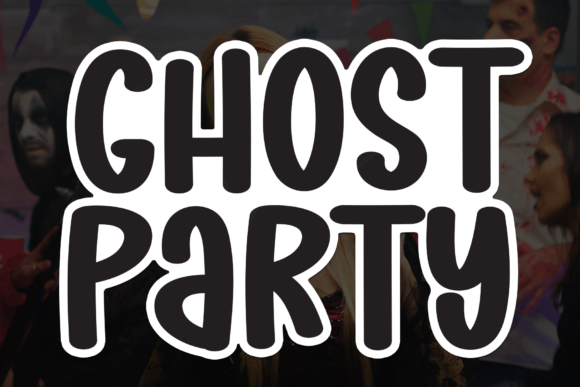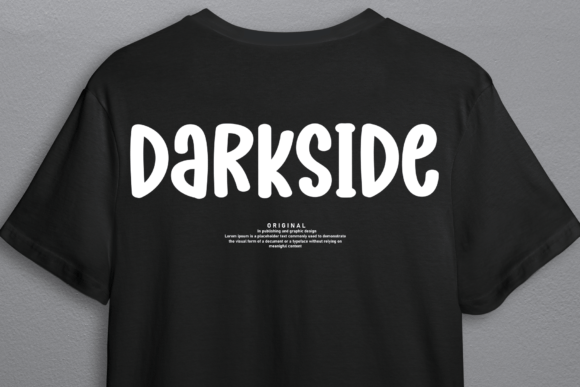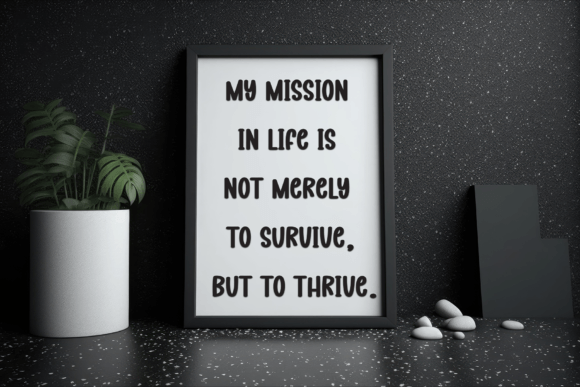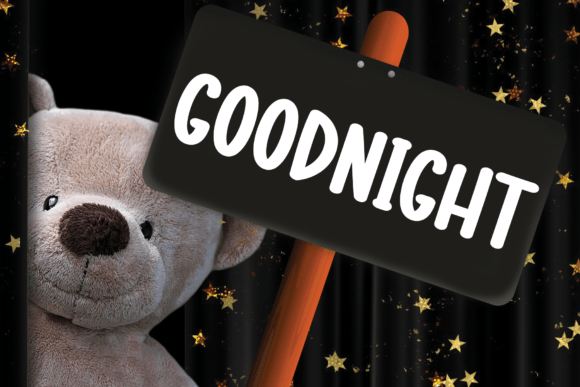
Ghost Party Font: A Cute Handwritten Font for Cricut & DIY Projects
About the Ghost Party Font
The Ghost Party Font is here to transform your projects with its distinctive character and style. Ghost Party is a lovely and timeless handwritten font. It is the best choice for
creating eye catching logos, branding and quotes. Every letter has a unique and beautiful touch, which will make your design come alive!
Ghost Party’s elegant, yet slightly playful handwritten style excels in headlines, short quotes, and logotypes where its unique character shines. It’s ideal for branding projects aiming for a sophisticated yet approachable feel, particularly those in fashion, beauty, or lifestyle sectors. However, its less-than-optimal readability makes it unsuitable for body text or UI elements requiring extended reading.
Pairing Ghost Party with a clean sans-serif like Montserrat or a geometric sans-serif like Futura adds modern contrast and improves legibility when used together. For a warmer feel, consider pairing it with a classic serif like Garamond or a script font like Great Vibes, but use the script sparingly to avoid visual clutter.
The font projects a confident, sophisticated, and subtly whimsical personality, making it perfect for brands seeking a unique and memorable identity without sacrificing readability in crucial areas.
Ghost Party Font Usage Examples
Ghost Party Font Example